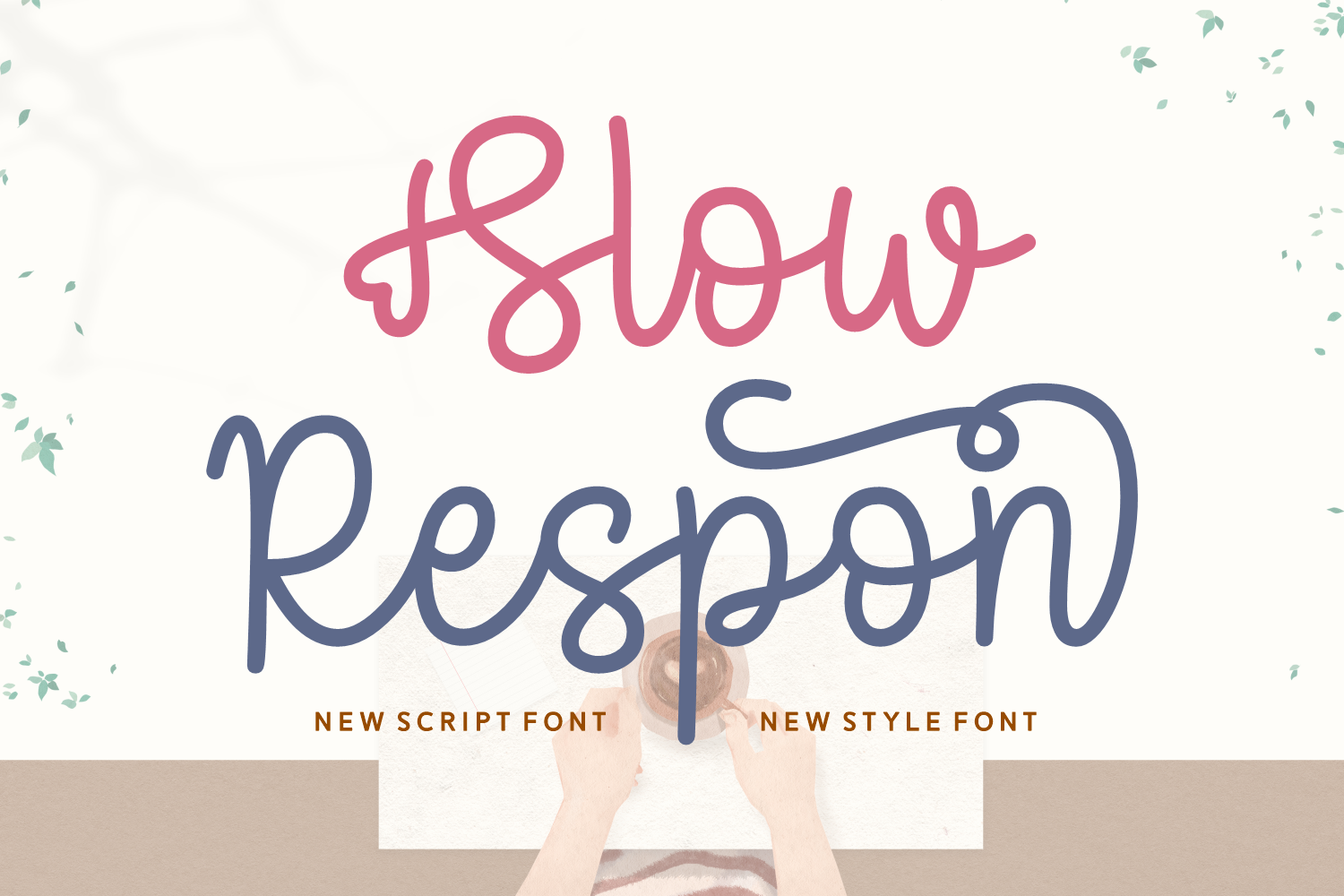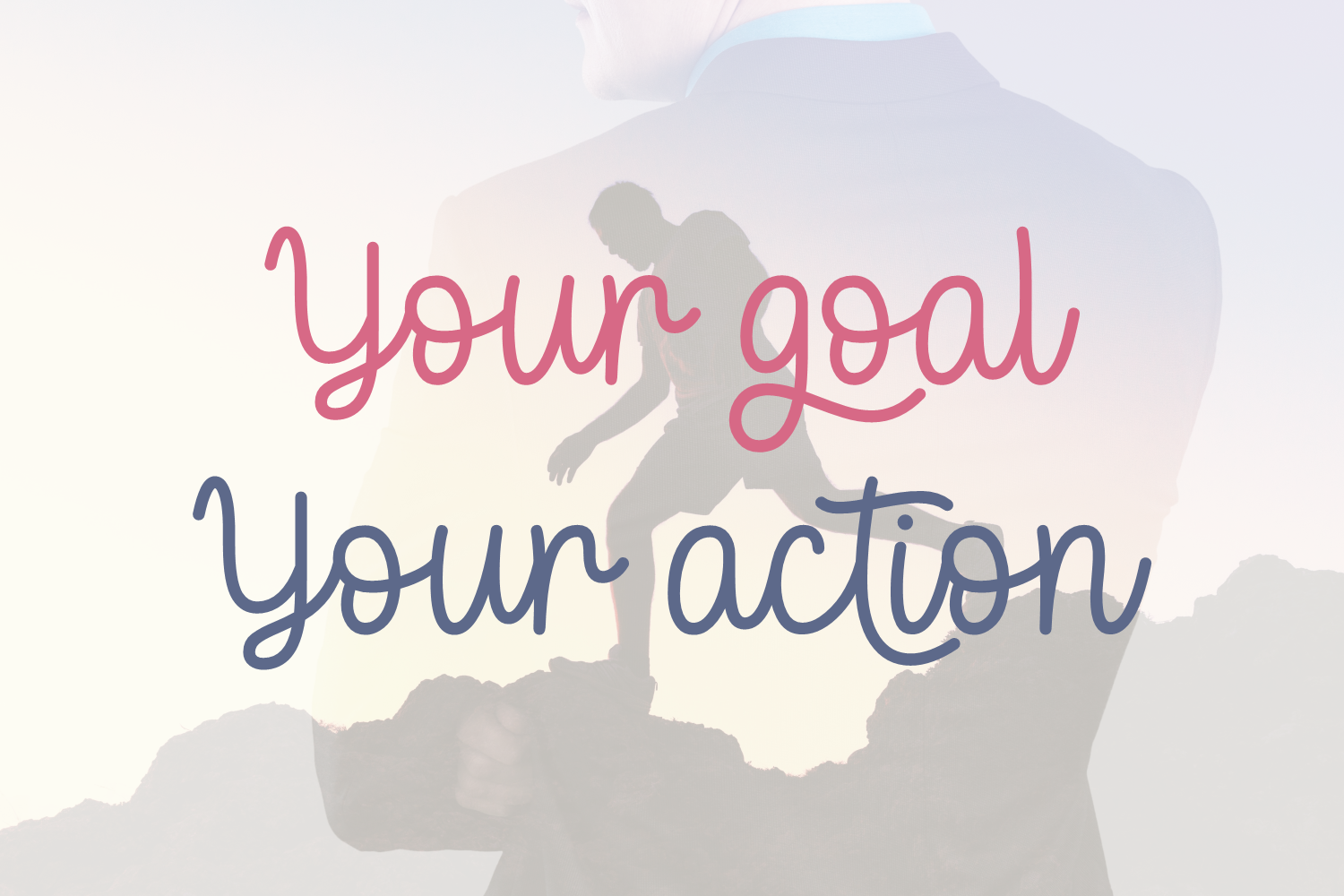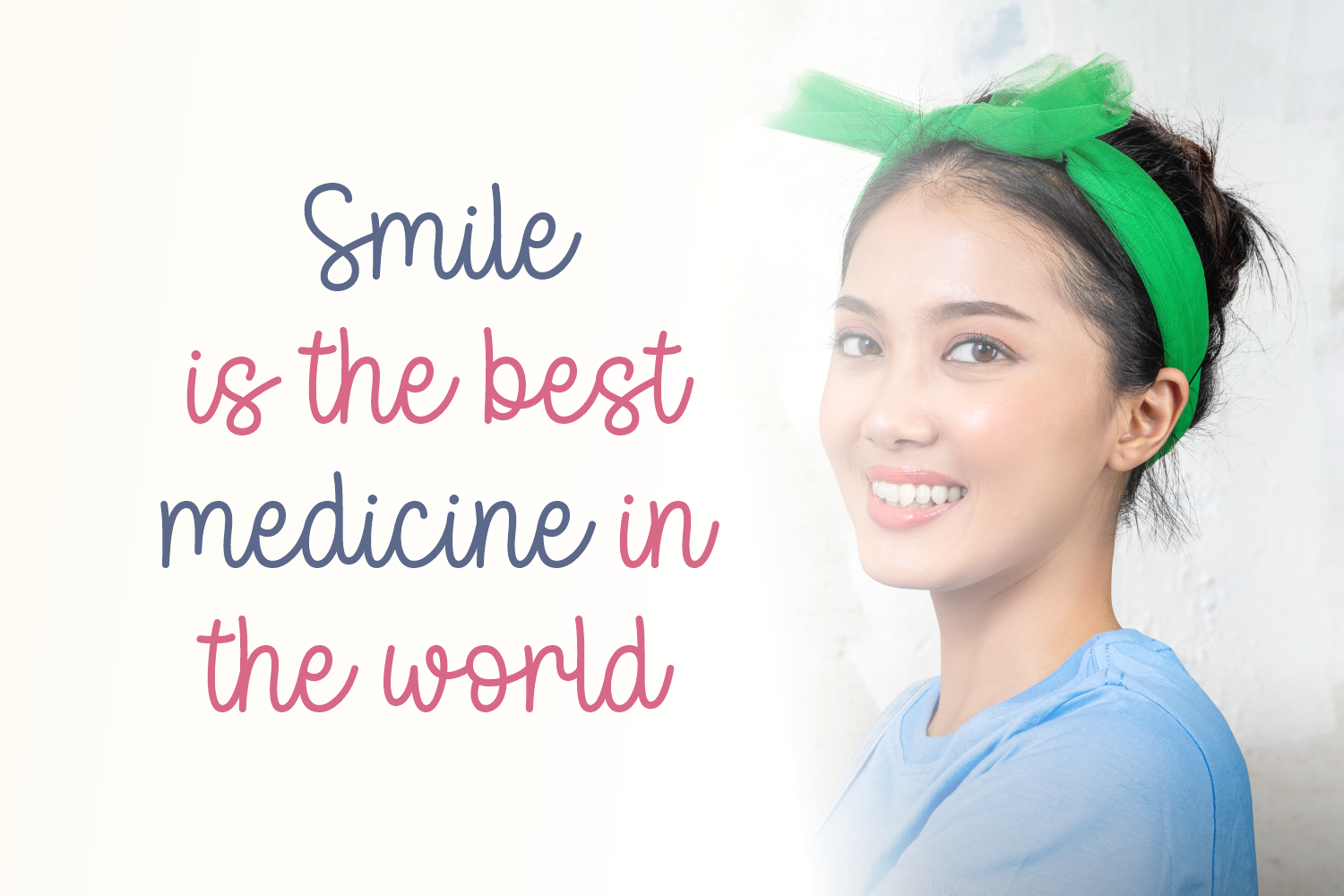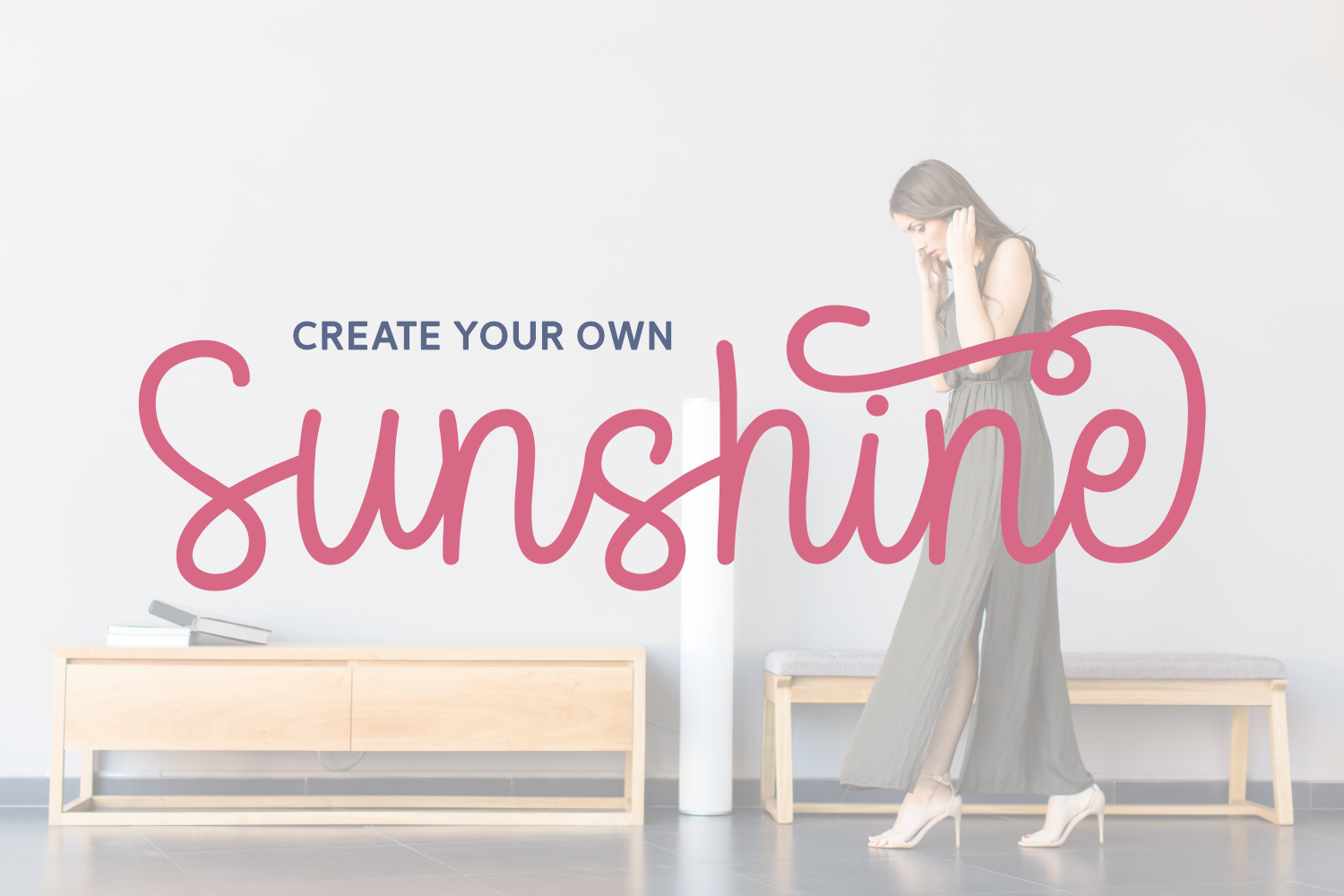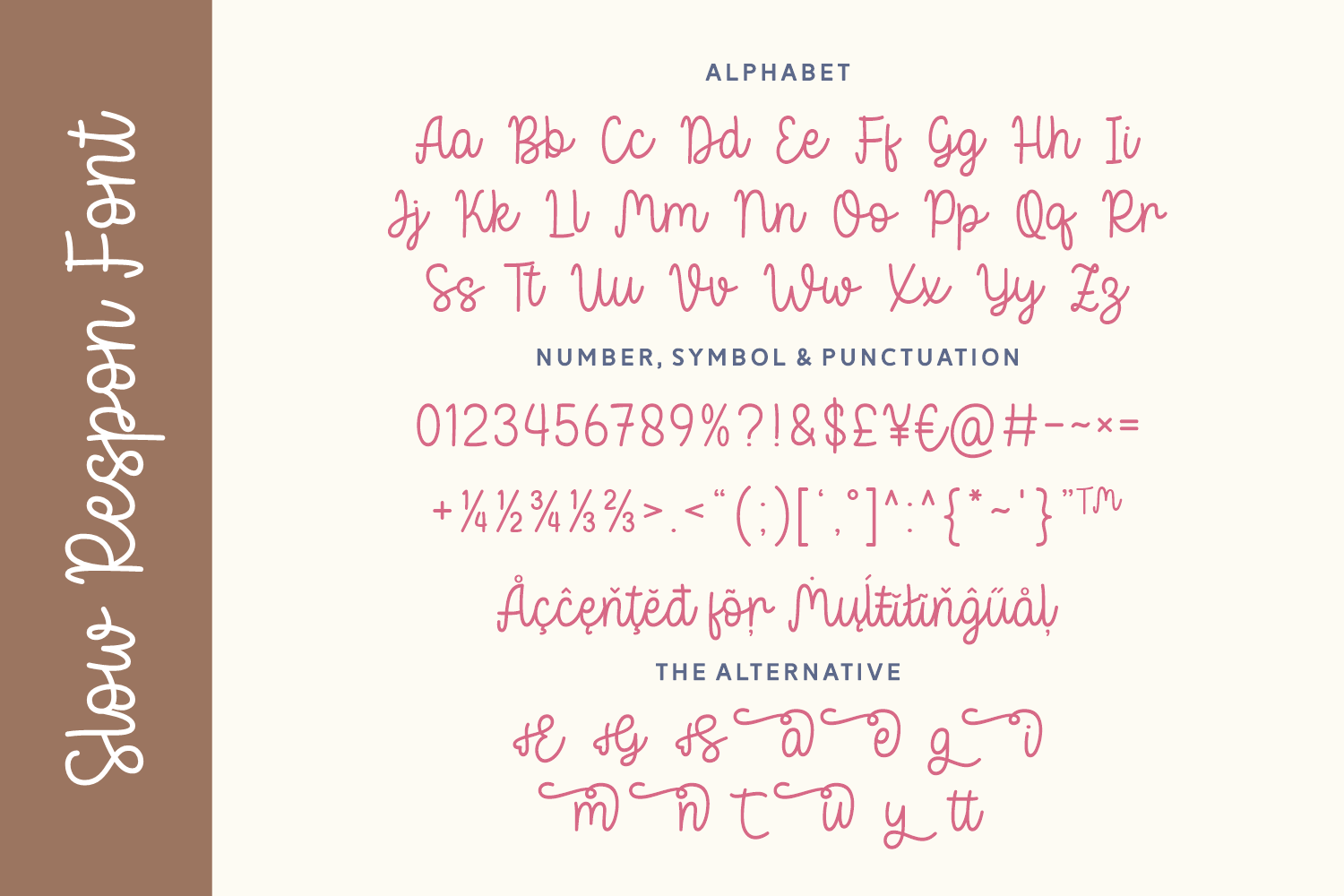
Slow Respon is a cheerful and quirky script font with an effortlessly casual vibe. Designed with a smooth monoline stroke and lively bounce, this font adds personality and approachability to any design.